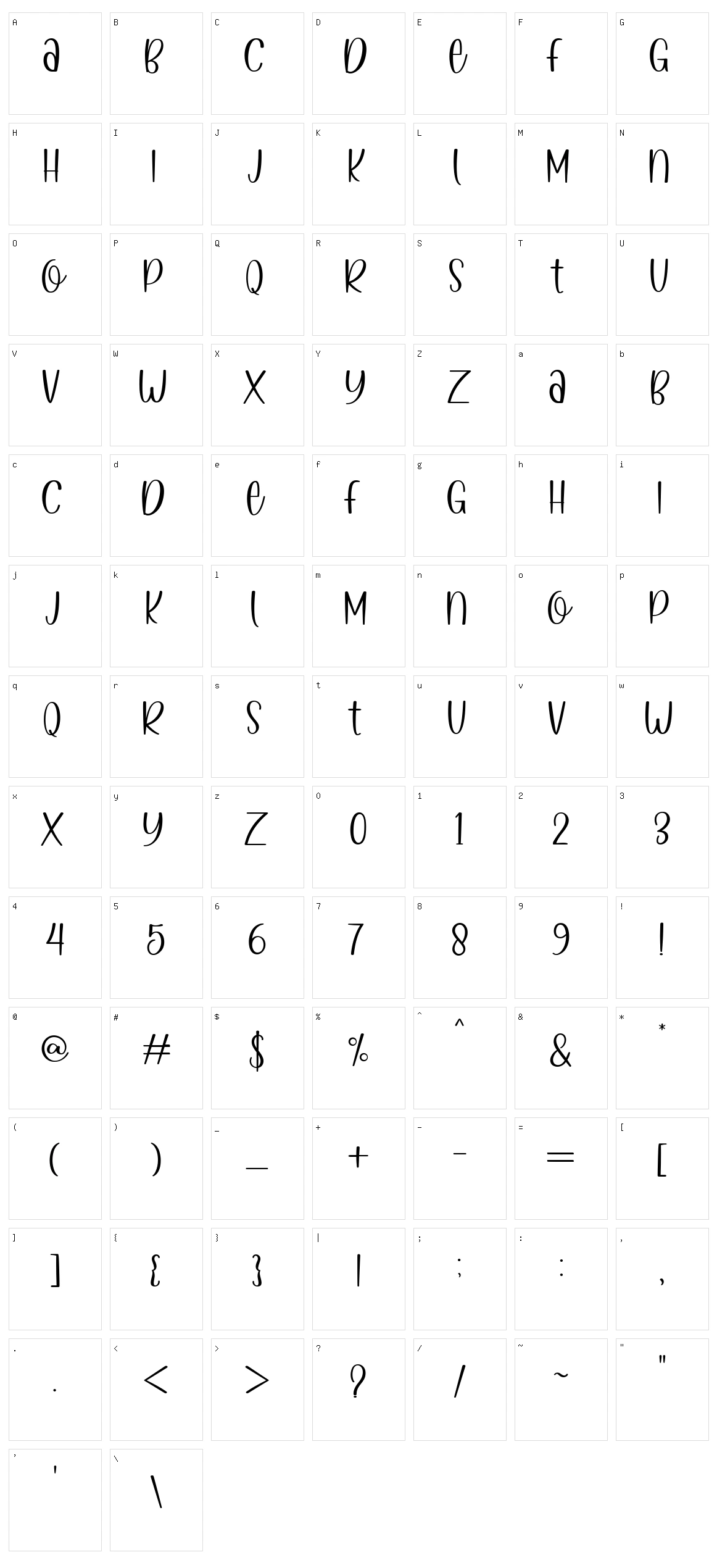
The free font Yellow Monkey is carefully designed by niyos, showcasing a thoughtful balance of creativity and usability and falls under the Cartoon font style. When you download the ZIP file, it contains only 62.1 KB of font files, making it lightweight and quick to download. Please review the license details below to understand permitted usage and distribution rights. If license information is not available, we recommend using this font for personal projects only or contacting the author directly for commercial usage permissions.